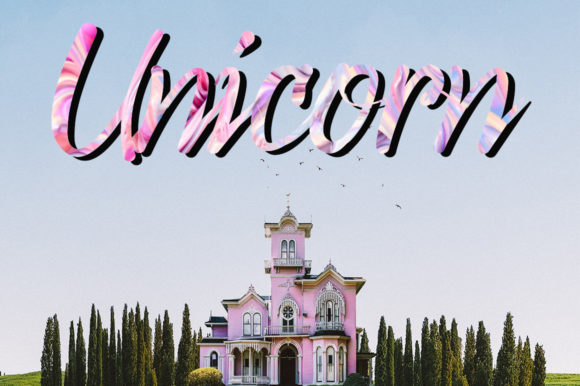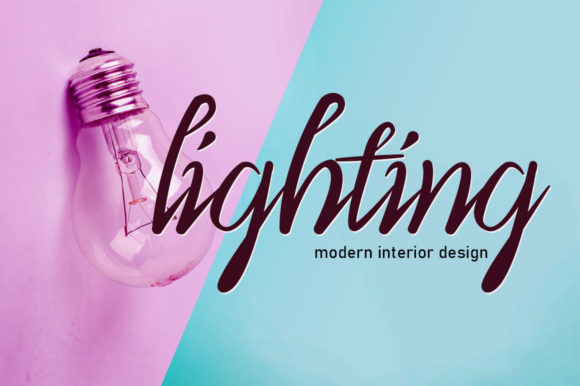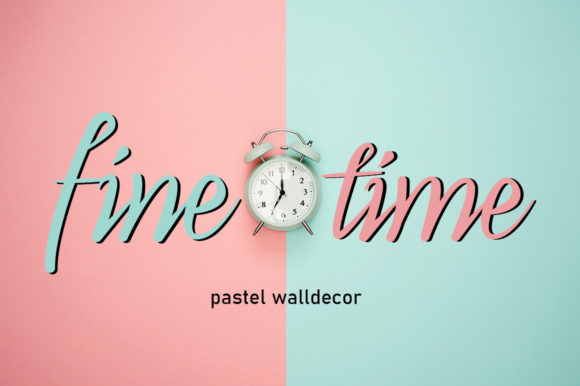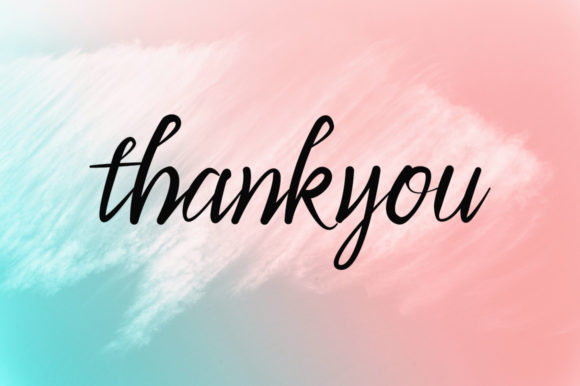
Chrysant Font
About Chrysant Font
Chrysant is a flowing and elegant script font. It works incredibly well on a variety of design ideas that require a cool touch. It has a clean, thin and smooth vibe and it will be a hit for any design that you want to add it to.